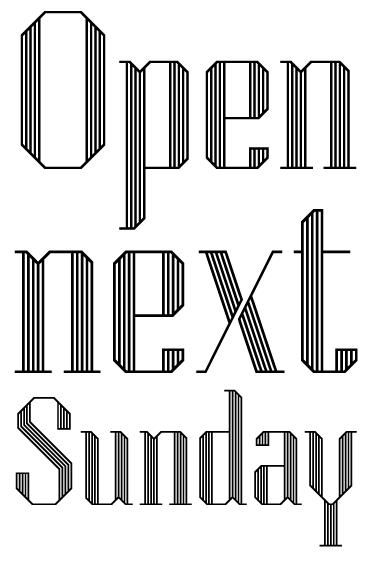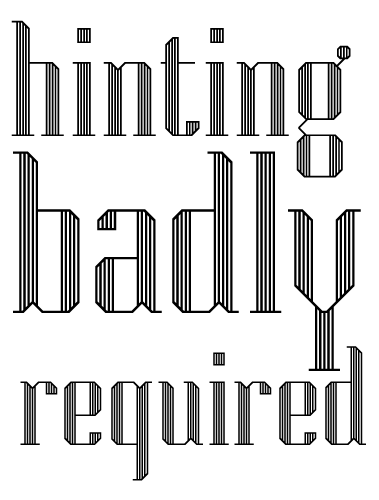
Ziseleur
i am impressed
Wonderful inline work!
What a beauty! Delicate, yet it has such a presence.
I guess that I would recommend it for large poster prints and not for displays.
It's interesting how the smaller preview fills in between the lines, but it looks good both as solid and inline versions.
One of the fonts that I would have liked to build. Great work!
(And beginning with "z" also).
Beautiful inline, the X/x are especially great. The F could have wider spacing to the right.
another great font. love this inline